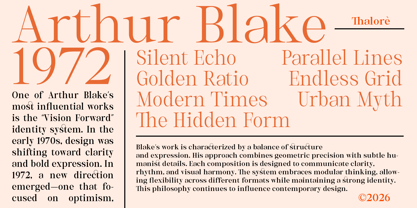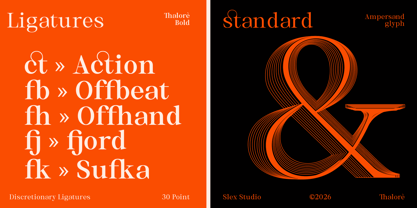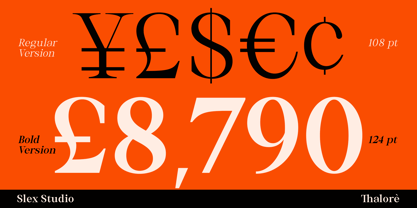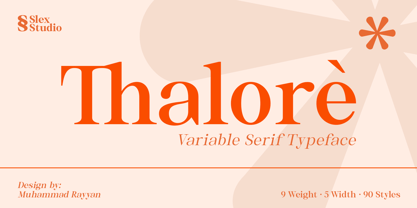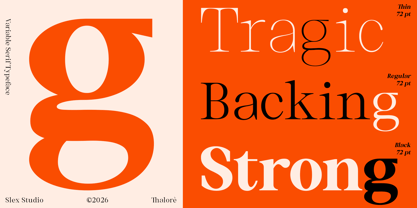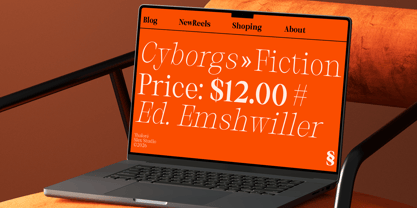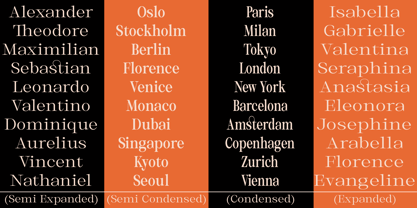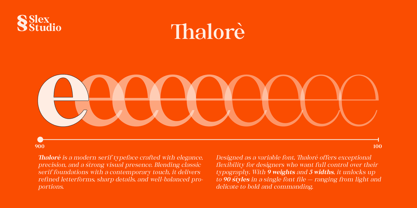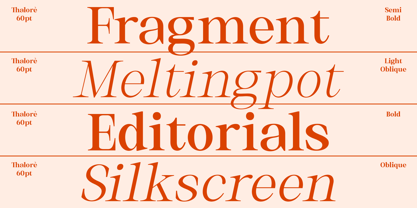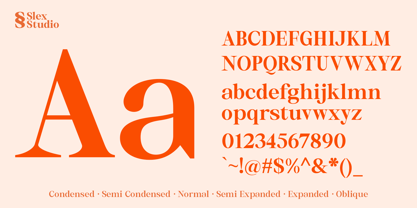
Thalore
by Slex Studio
The Thalore Font Family was designed by Muhammad Rayyan and published by Slex Studio. Thalore contains 91 styles and family package options. More about this family
Thaloré is a modern high-contrast serif designed with a focus on clarity, elegance, and flexibility. Its refined letterforms and balanced proportions allow it to perform equally well in both display and editorial settings, maintaining a consistent and polished appearance across different sizes. Built as a variable font, Thaloré provides precise control through weight and width axes, enabling a wide range of typographic expression within a single file. With 9 weights and 5 widths, totaling 90 styles, it offers versatility for various design needs while preserving harmony and readability. Thaloré is well suited for editorial layouts, branding, logos, packaging, and web typography, making it a reliable choice for projects that require a clean and sophisticated serif voice.
Designers: Muhammad Rayyan
Foundry: Slex Studio